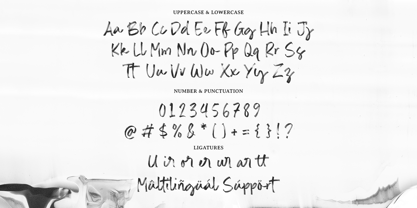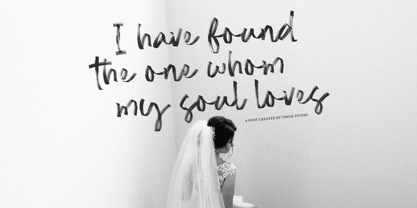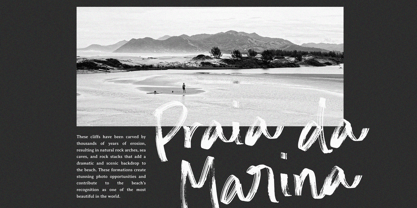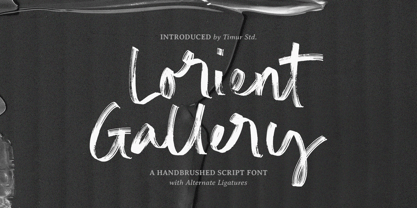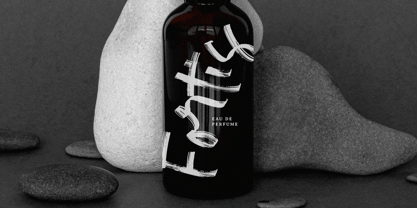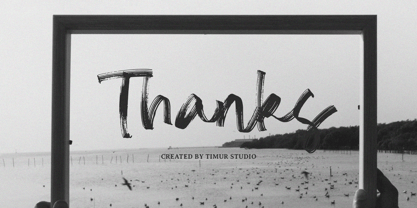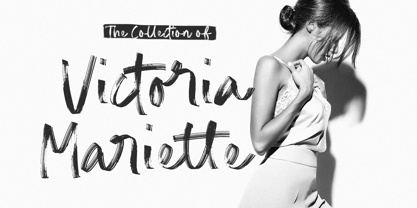
Lorient Gallery
by Timurtype
The Lorient Gallery Font Family was designed by Wara Sigit Tri Pamungkas and published by Timurtype. Lorient Gallery contains 1 styles.
Introduced by Timurtype Studio!
Lorient Gallery is a Handbrushed Script Font
This font is a elegant handbrushed script font that blends artistic flair with modern sophistication. Featuring smooth, flowing strokes and a natural, handwritten feel, it includes a rich set of alternate ligatures for added versatility and style. Perfect for branding, invitations, and creative projects, Lorient Gallery brings a graceful touch to any design.
Lorient Gallery Font also supports multilingualism